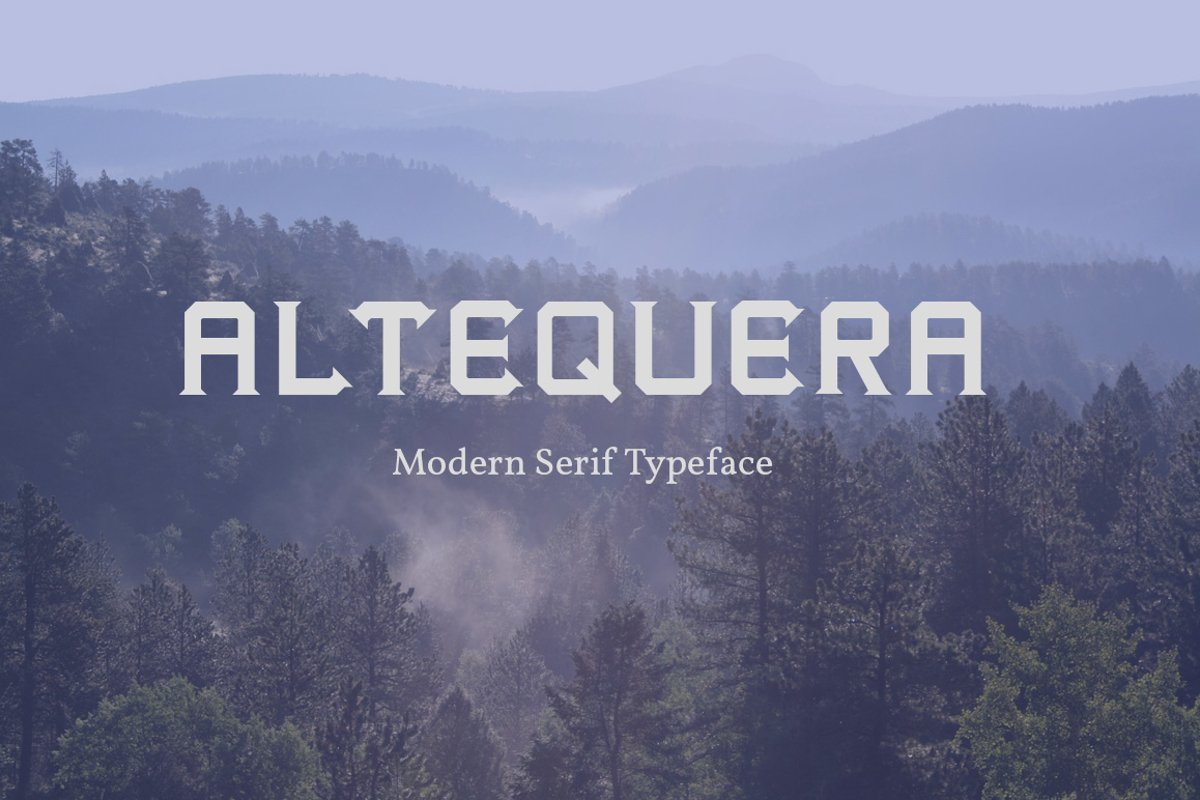
Altequera Typeface
"Altequera" typeface is a font. This is good for projects like a menu boards cafe, backgrounds, t-shirt, labels, flyers, posters or another design projects.This pack contains :